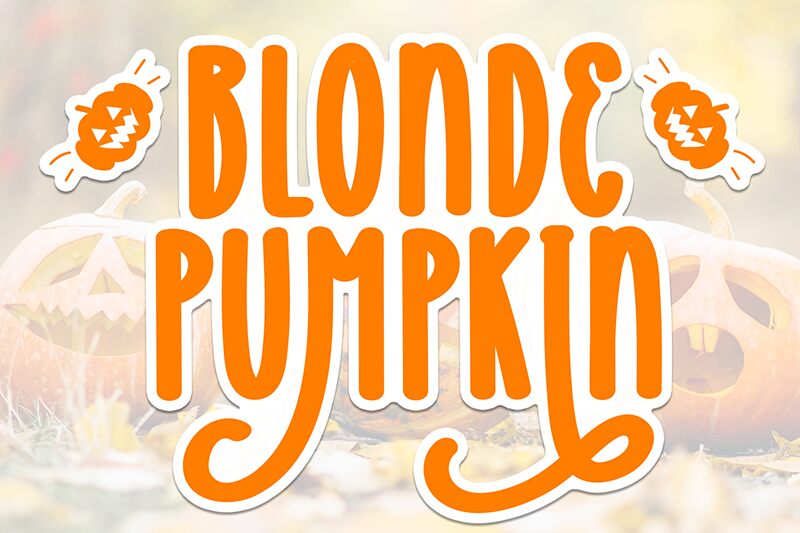
Blonde Pumpkin
Blonde Pumpkin font by Scratchones is a condensed brush typeface with a whimsical, retro-inspired charm. Exhibiting a casual aesthetic with its hand-drawn appearance, the font achieves a vintage feel that is suitable for use in creative applications.